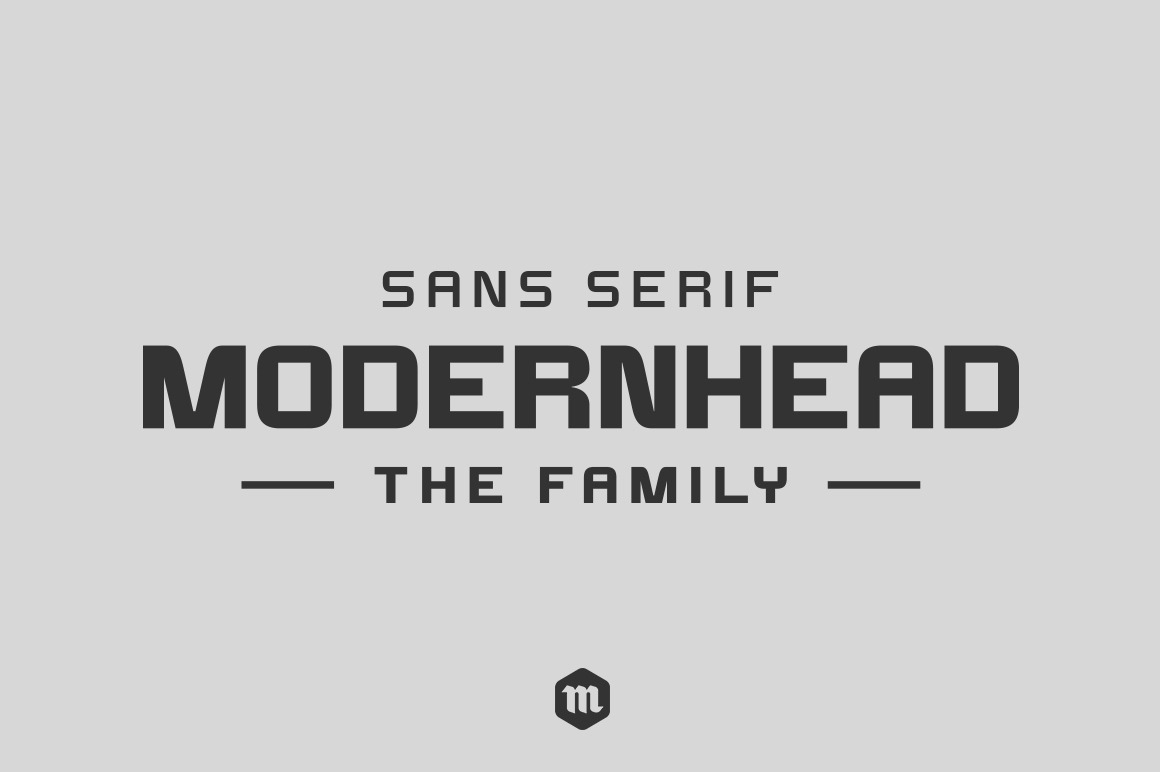
Modernhead Typeface | Font
Modernhead is a 3 weights font family.
Modernhead is a modern, clean and simple sans serif font. It has 252 glyphs and supports multiple foreign languages. Is perfect for modern logo designs, headers and small amounts of text. It contains an uppercase and lowercase alphabet with numbers and symbols.
- Modernhead Bold
- Modernhead Black